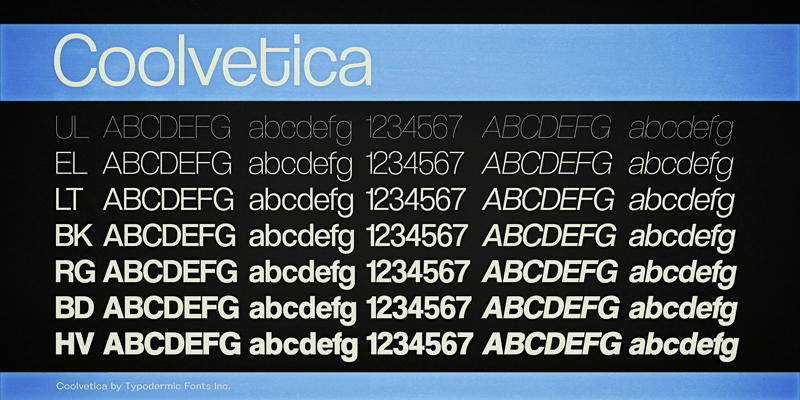
Coolvetica is a scratch-built, sans-serif typeface, inspired by 1970's American logo designs. This was an era where everyone was modifying Helvetica with funky curls, mixed-case and effects. Coolvetica recreates that 1970's custom display lettering look with really tight kerning and funky curls. The tails on the R and a have been left out to allow even tighter spacing. It certainly isn't intended for setting paragraphs of book text—Coolvetica is a pure display typeface, intended for big, funky headings and titles. These fonts include a license that allows free commercial use: sometimes referred to as a desktop license. This allows you to install the fonts on a computer and use them to create posters, web graphics, game graphics, t-shirts, videos, signs, logos and more. Read the license agreement for details. If you'd like to embed these fonts in an app, ebook, on the web or anything that's not covered by the desktop license agreement, visit the link below. You'll find distributors who offer different types of licenses or you can contact me for help. http://typodermicfonts.com/coolvetica/ These free fonts are part of a larger font family. Check out the rest of the family through the link above. |